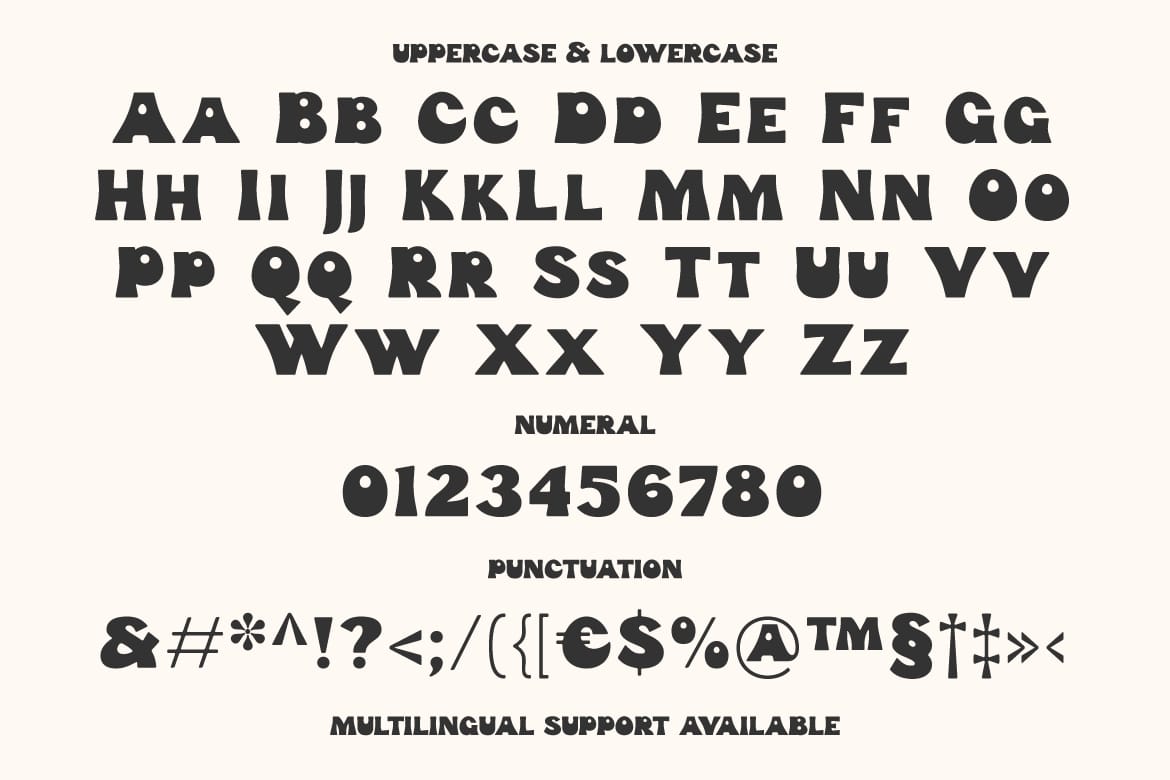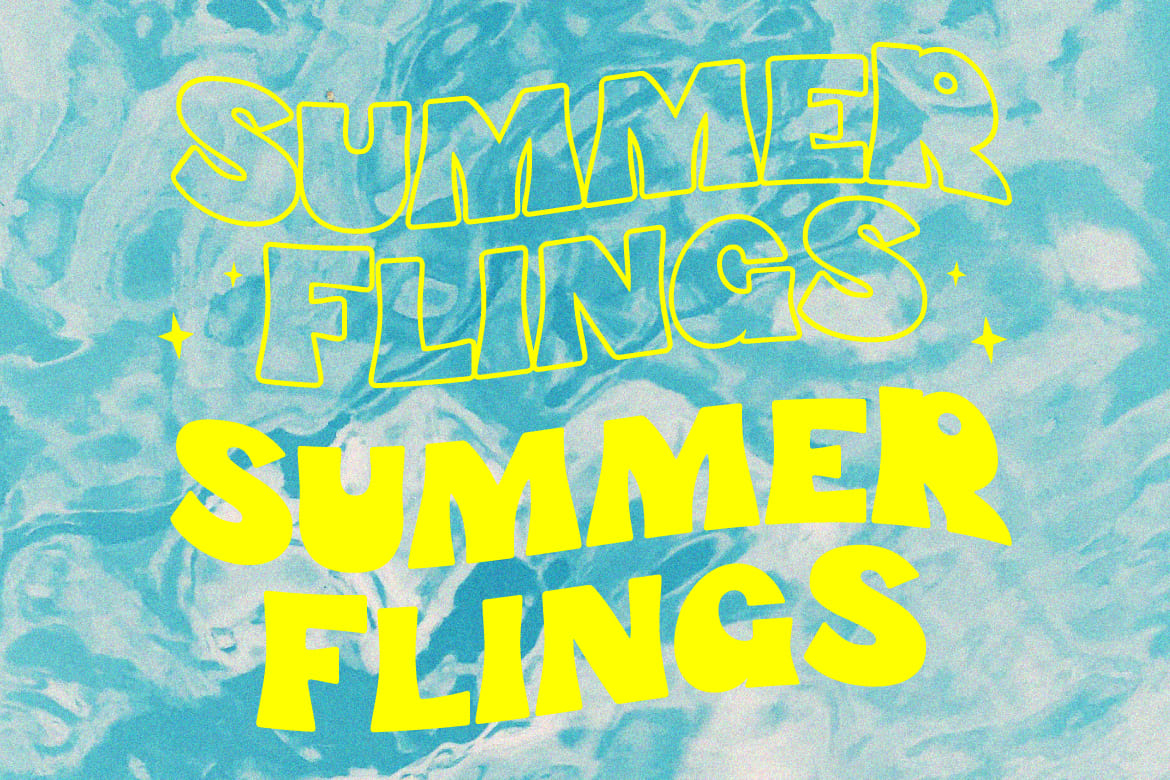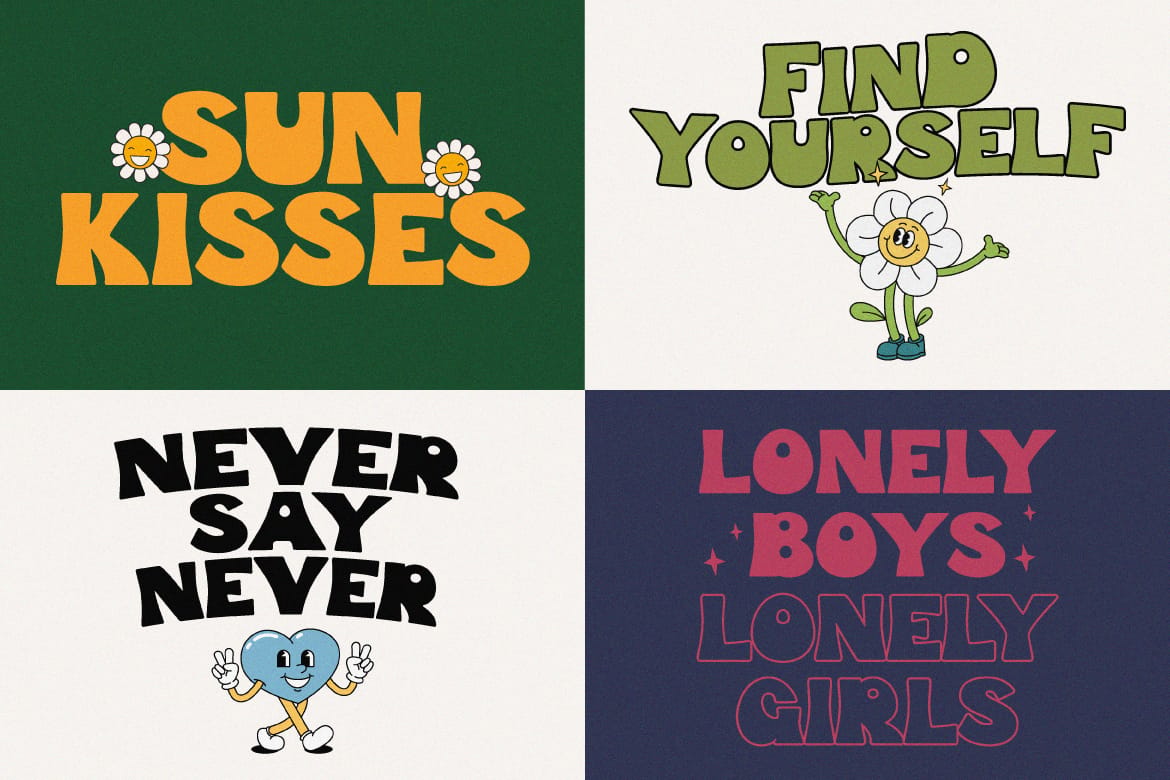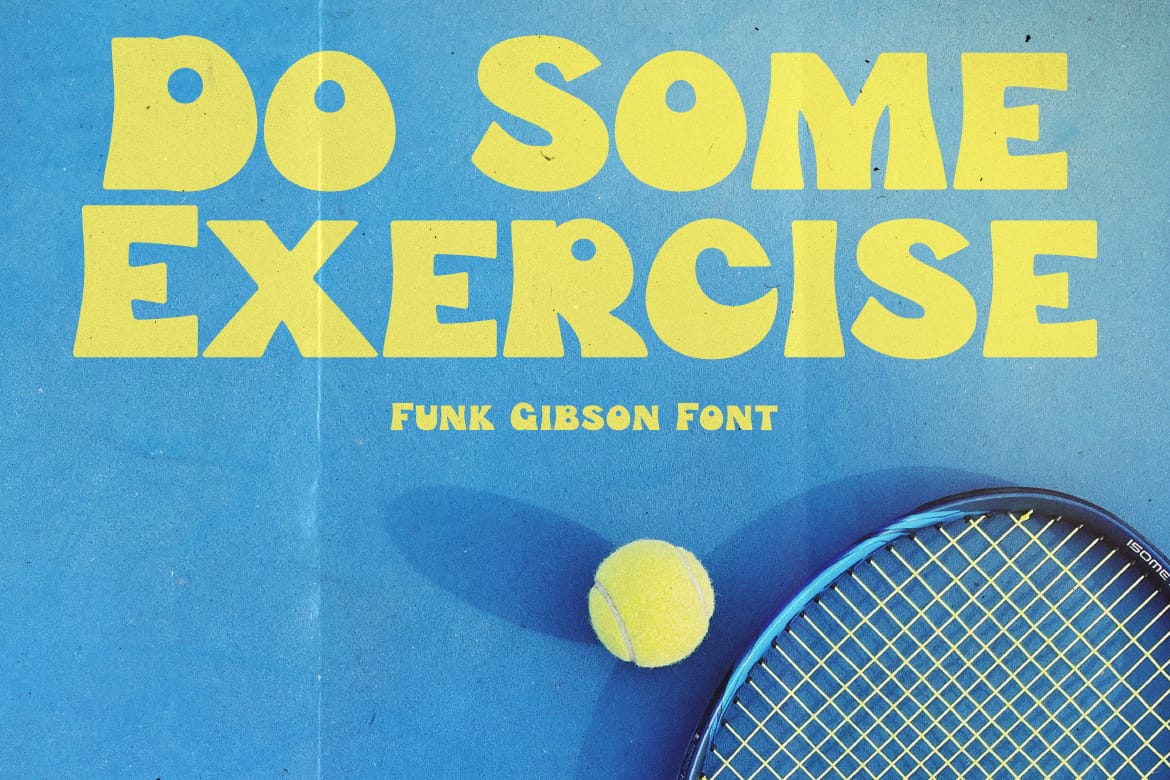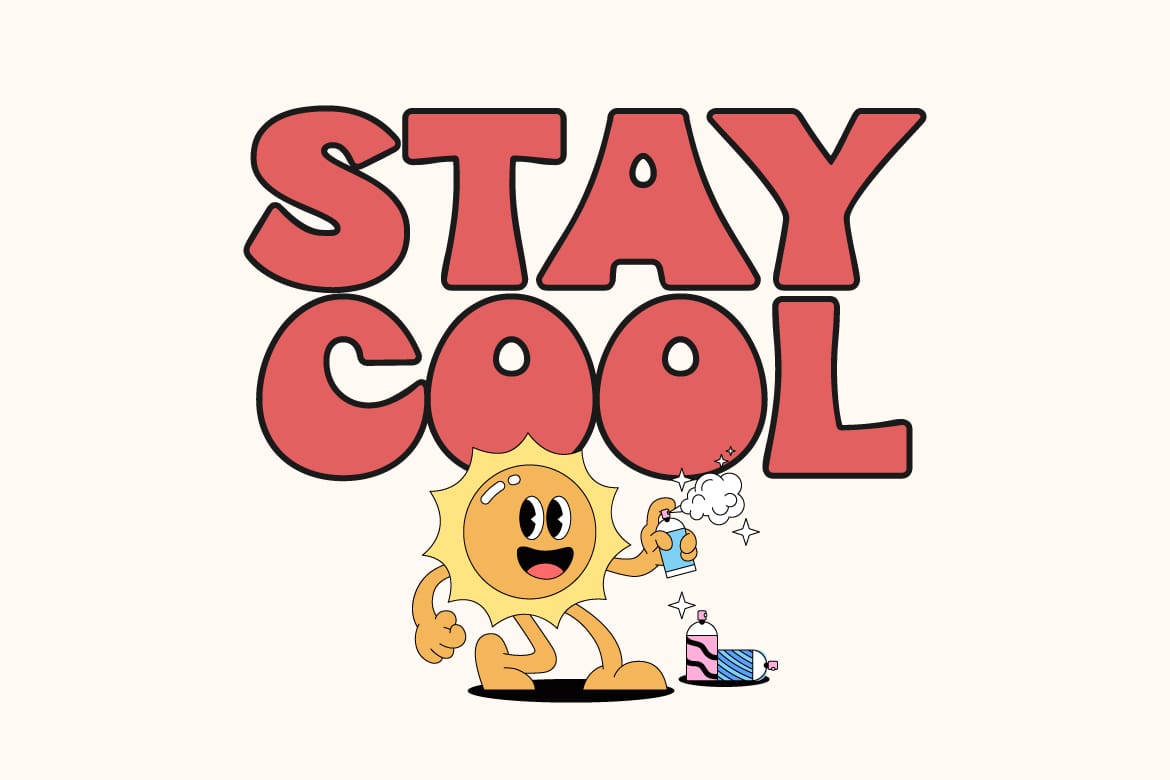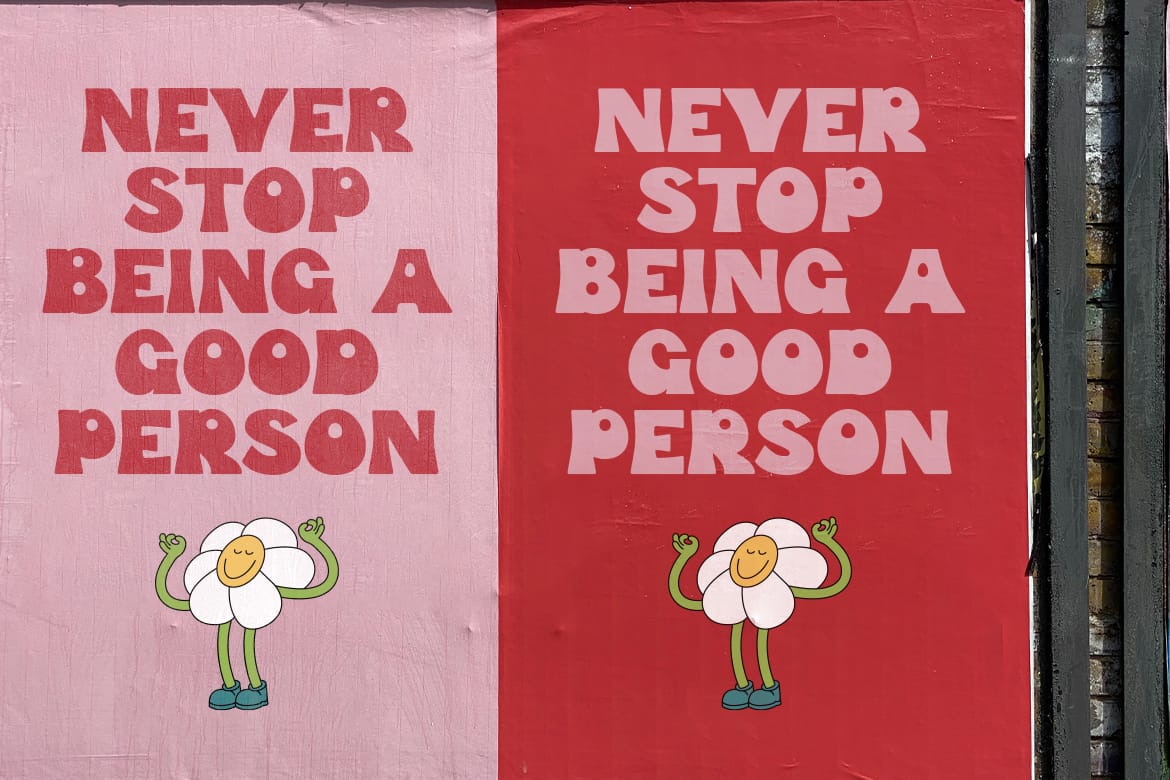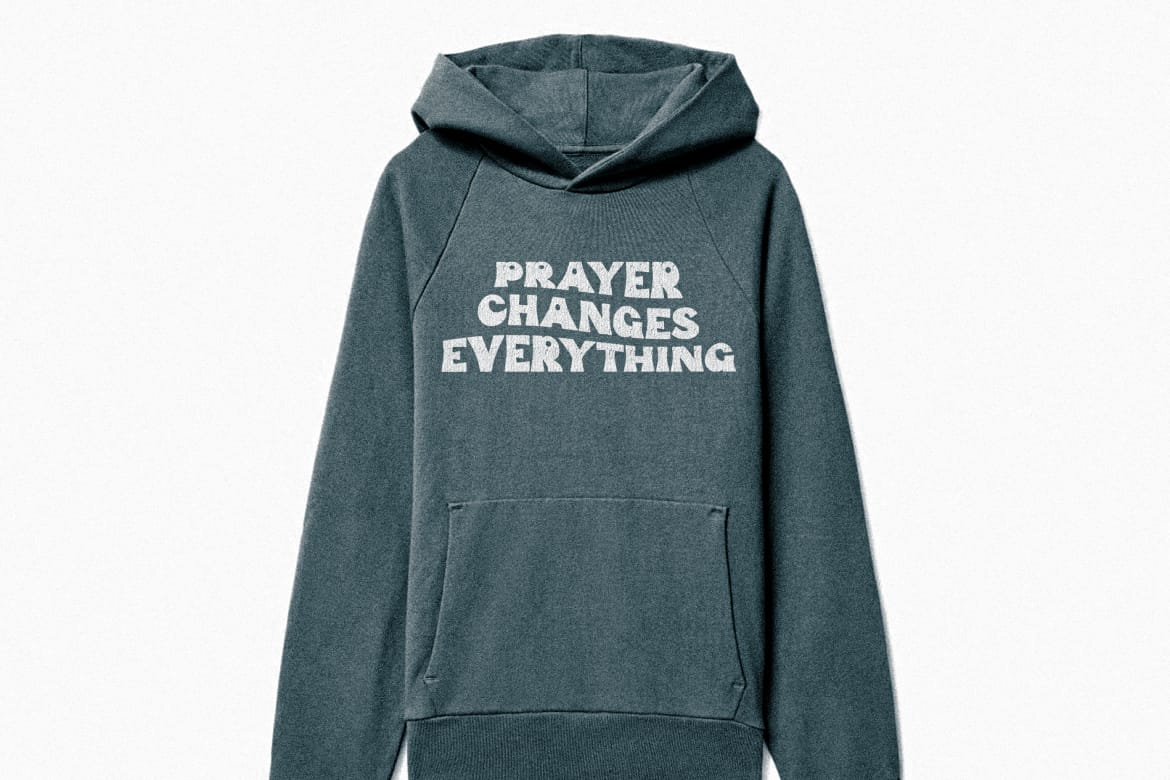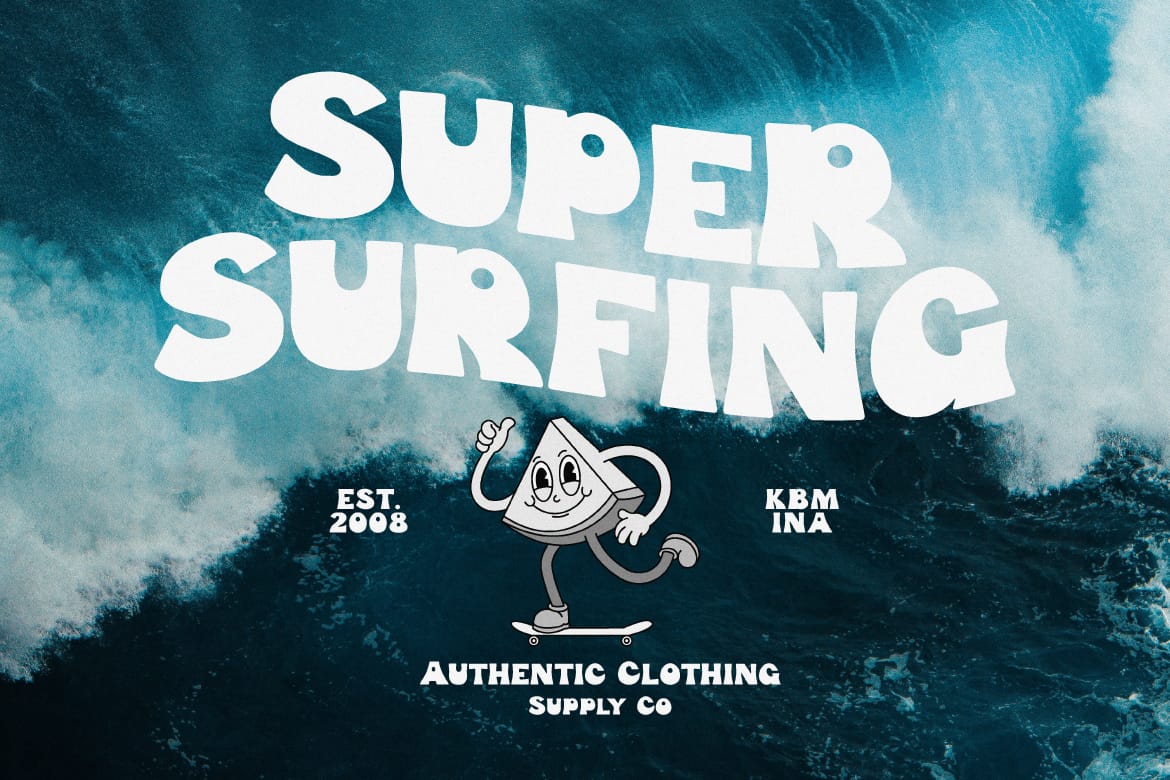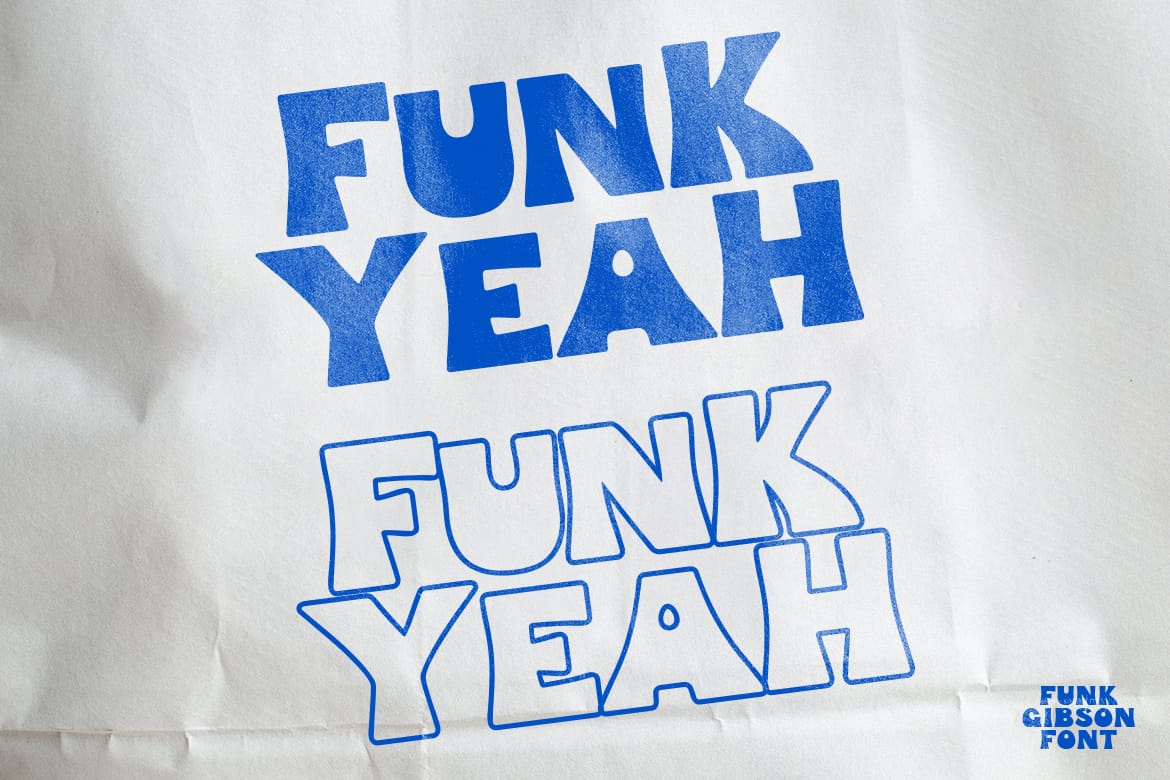
Funk Gibson - Display Font.
Expressive display fonts make your designs more fun and look fresh. This is perfect for those of you who are making design projects such as posters, crafts, branding, or merchandise.
Features: Uppercase, Lowercase, Numeral, Punctuation & Multilingual.
Multilingual supported: Afrikaans, Albanian, Basque, Catalan, Danish, Dutch, English, Estonian, Filipino, Finnish, French, German, Indonesian, Irish, Italian, Norwegian, Portuguese, Spanish, Swedish, and many more.
- Fun and expressive design
- Multilingual support included